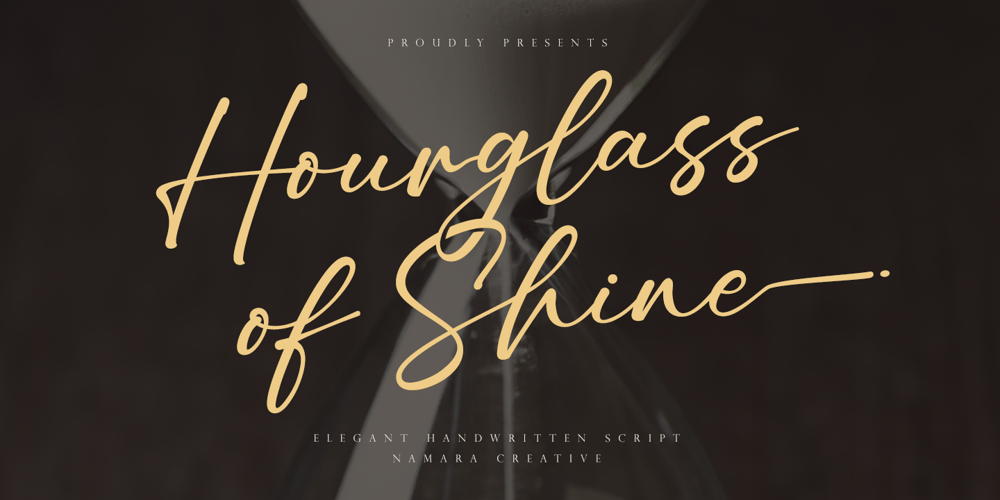
Hourglass of Shine
Hourglass of Shine font
Hourglass of Shine Font Family was designed by Eep Apringga and published by Namara Creative Studio. Hourglass of Shine contains 1 styles and family package options. Elegant handwritten script font with natural touch and beautiful style. Add a touch of elegance to your project with our exquisite Handwritten Script Font. Elevate your designs and captivate your audience with the timeless beauty of this font. Get it now and take your work to the next level!Features : Full Set of standard characters and punctuations. Alternates, ligatures, swashes and multilingual support characters. PUA Encoded | No special software needed to access extra characters. NOTETo be able to access ligatures and the alternate letters, please make sure the software you are using can support opentype features.